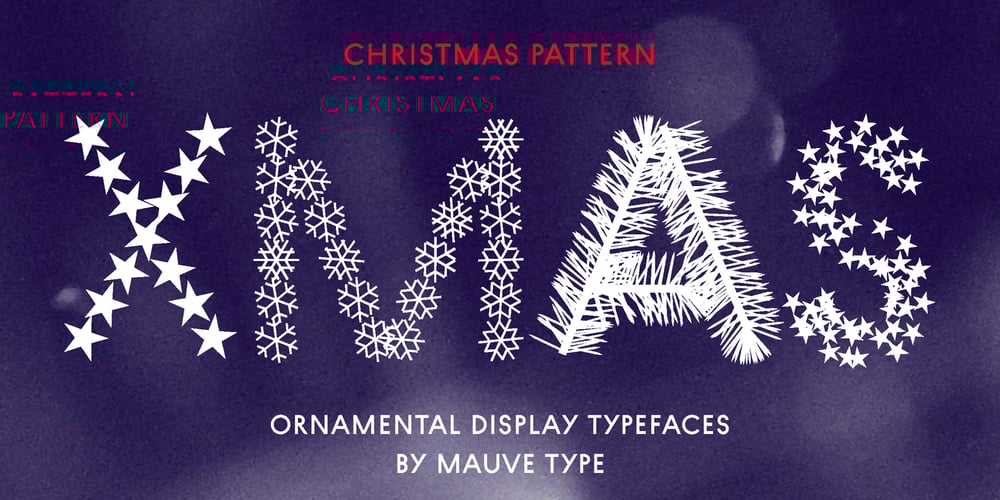
Christmas Pattern Font Family was designed by Eike Dingler and published by Mauve Type. Christmas Pattern contains 4 styles and family package options. The same procedure as every year? Again Christmas cards and greetings need to be designed… Sick of the usual Christmas imagery? Finally here is the ultimate typographical solution: 4 Christmas Pattern Fonts for display use. Playfull yet straight, Christmassy yet aesthetically pleasing. Pattern is the new sexy! Practical details: – Use in great display sizes only. The bigger – the better! – Fonts gain kind of “transparency” through the patterns – handy for use on top of images. – Characterset is caps only and supports Central, Eastern and Western European languages. – Entertaining 2 min movie explaining the basic concept and making of the Pattern Fonts. – Combine with “non-Christmassy” Pattern Fonts from the Pattern family. – Also available: a blank version in light, regular and bold.